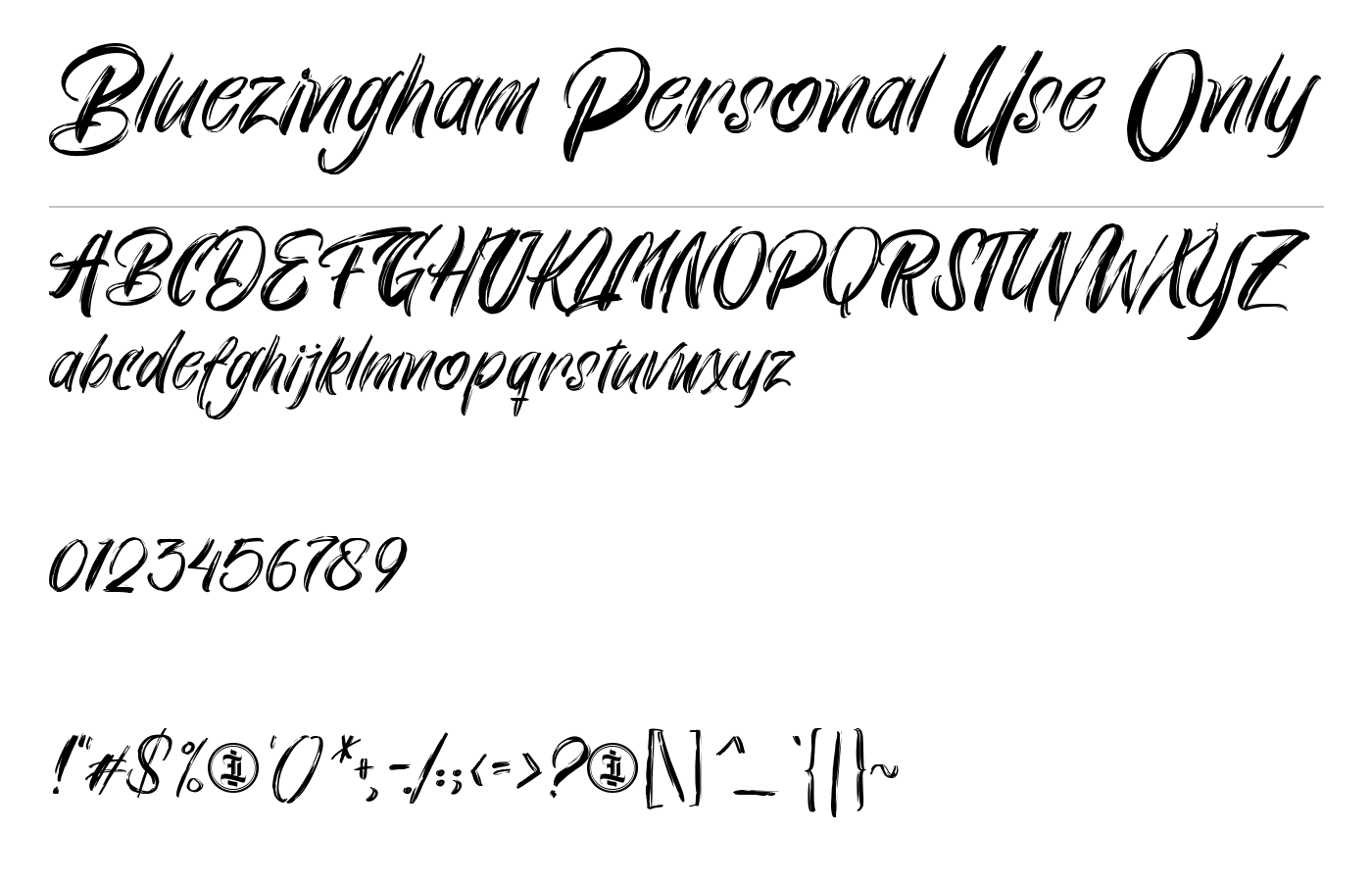
Bluezingham Personal Use Only is a dynamic brush script font that exudes energy and creativity with its hand-painted texture and lively strokes. Its bold yet playful character makes it perfect for eye-catching logos, packaging, and posters that seek a personal, artistic feel. This font shines in designs that want to communicate a vibrant, handcrafted style with personality and flair.
Bluezingham Personal Use Only Font
About Bluezingham Personal Use Only Font